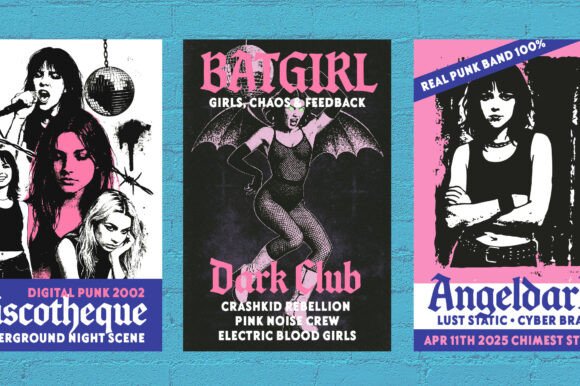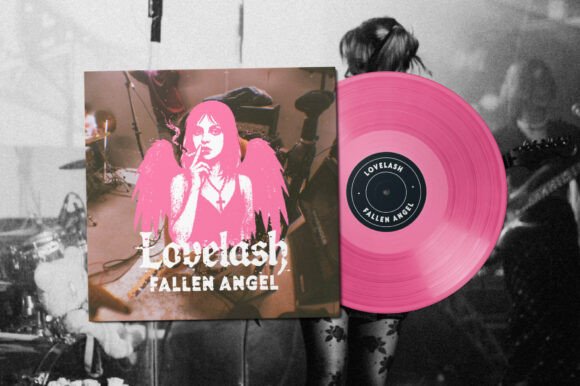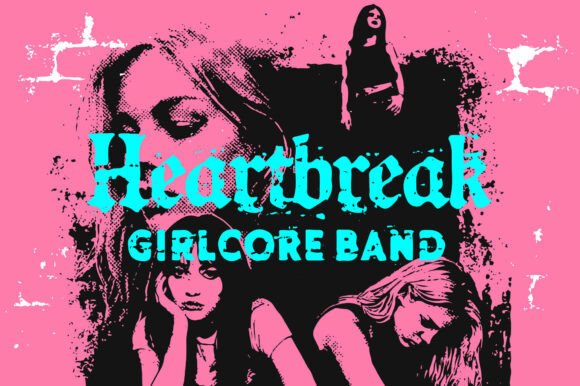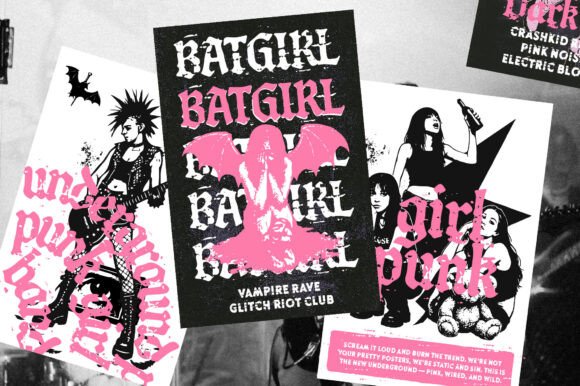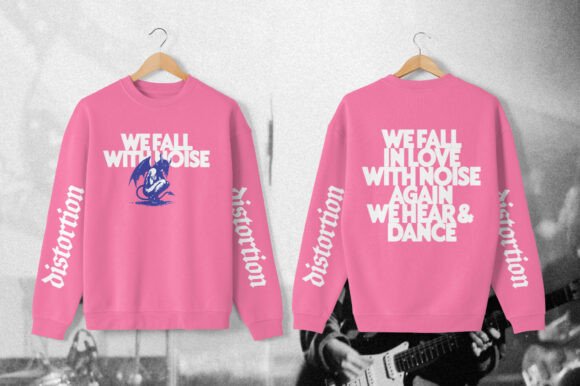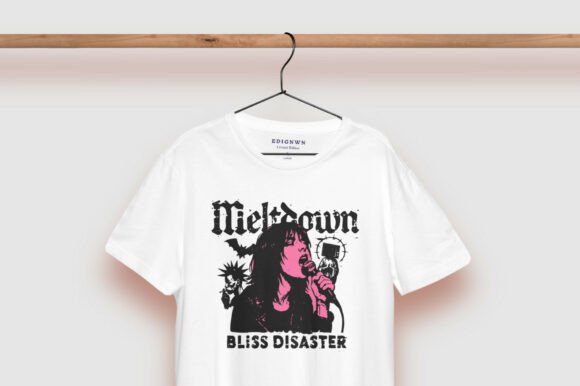
Unleash Your Rebellious Spirit with Blightmark Duo Font
Are you a designer or crafty enthusiast looking for a font that embodies the raw energy and defiant attitude of punk culture? Look no further than the Blightmark Duo Font, a bold display font duo that’s perfect for visual branding, band merch, and underground culture projects. This type system combines gritty blackletter flair with modern distortion, making it an ideal choice for girl punk bands and raw DIY aesthetics.
The Perfect Blend of Gritty and Modern
The Blightmark font duo is designed to deliver a fierce visual voice that commands attention on posters, album covers, apparel, and editorial layouts. With its jagged edges, textured ink, and heavy letterforms, this font feels raw and intense, making it perfect for punk posters, band merch, indie zines, or extreme branding. The combination of gothic structure with urban grit offers a unique visual tone that’s chaotic yet structured, making it ideal for those who want to break convention.
What to Expect from Blightmark Duo Font
The Blightmark font duo includes:
- 3 typefaces — Blackletter, Oblique, and Sans
- 2 style options for each (Regular and Textured)
- Uppercase, lowercase, numeral, symbol, and punctuation in blackletter font
- All characters, including accents and diacritical marks
Key Features of Blightmark Duo Font
The Blightmark font duo comes with several key features that make it stand out:
- Jagged Edges and Textured Ink: The font’s jagged edges and textured ink give it a raw, distressed look that’s perfect for punk and DIY aesthetics.
- Heavy Letterforms: The heavy letterforms deliver a bold, attention-grabbing visual voice that’s perfect for posters, album covers, and apparel.
- Dripping Splatters and Distorted Edges: The font’s dripping splatters and distorted edges add to its raw, intense feel, making it perfect for extreme branding and underground culture projects.
- Expressive Heavy Texture: The font’s expressive heavy texture gives it a unique, chaotic feel that’s perfect for those who want to break convention.
Who is Blightmark Duo Font for?
The Blightmark font duo is perfect for:
- Designers: Designers who work with clients in the music, fashion, or art industries will love the Blightmark font duo’s bold, attention-grabbing aesthetic.
- Crafty Enthusiasts: Crafty enthusiasts who enjoy making their own band merch, posters, or DIY projects will appreciate the font’s raw, DIY feel.
- Punk and Indie Bands: Punk and indie bands looking for a font that embodies their rebellious spirit will love the Blightmark font duo’s gritty, modern aesthetic.
How to Use Blightmark Duo Font
The Blightmark font duo can be used for a variety of projects, including:
- Posters and Flyers: Use the font to create bold, attention-grabbing posters and flyers for punk shows, festivals, or events.
- Band Merch: Use the font to create band merch, such as t-shirts, stickers, or patches, that reflects the band’s rebellious spirit.
- DIY Projects: Use the font to create DIY projects, such as zines, stickers, or stencils, that showcase your creativity and individuality.
- Branding and Identity: Use the font to create bold, attention-grabbing branding and identity materials, such as logos, business cards, or letterheads, that reflect your brand’s rebellious spirit.
In conclusion, the Blightmark Duo Font is a bold display font duo that’s perfect for designers and crafty enthusiasts who want to unleash their rebellious spirit. With its gritty blackletter flair, modern distortion, and raw, intense feel, this font is ideal for punk posters, band merch, indie zines, or extreme branding. Whether you’re a designer, crafty enthusiast, or punk band, the Blightmark font duo is sure to deliver a fierce visual voice that commands attention.